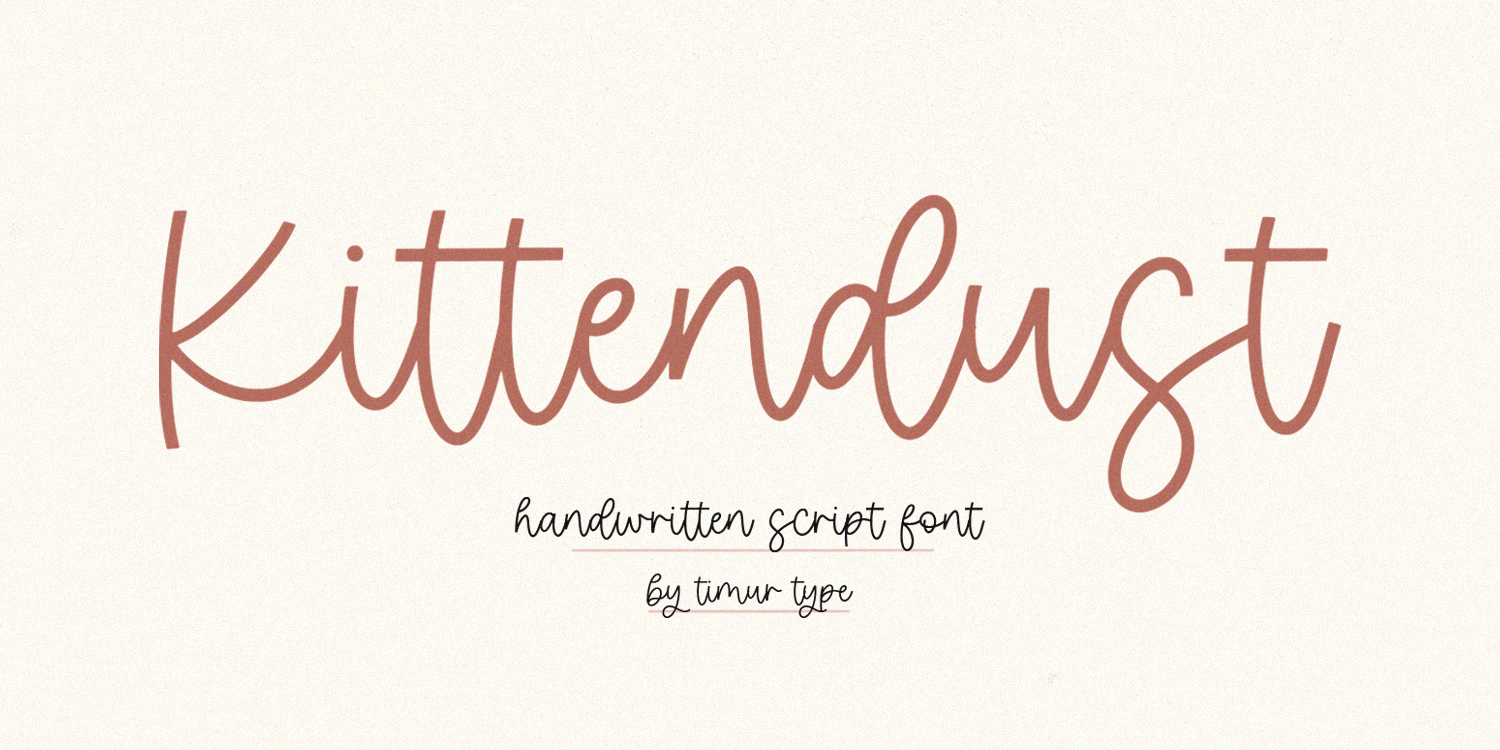
Kittendust Font is perfect for adorable pet shop branding, whimsical children's book covers, magical fairy tale illustrations, dreamy nursery room decorations, enchanting toy packaging, delicate baby boutique signage, sweet candy store graphics, and charming family photography studios. This magical typeface excels in playful applications, enchanting design projects, and any creative work requiring sprinkled sweetness that captures the essence of childhood wonder and magical innocence through softly sparkling visual enchantment.
What makes Kittendust Font exciting is its extraordinary ability to embody magical innocence and playful enchantment through delicately sprinkled letterforms that shimmer with childhood wonder and sparkle with dreamy sweetness. The font features whimsically designed characters with fairy-dust curves and magical proportions that evoke feelings of pure joy and innocent delight, making it ideal for brands seeking to establish connections with children and families while communicating through enchanting magical visual language. Its sparkling presence ensures immediate recognition of innocent authenticity and magical charm.
Kittendust Font family includes multiple weights and styles: Regular, Bold, Light, Medium, Italic variations, and magical alternates with fairy-dust embellishments and enchanting decorative elements. Each family member maintains the distinctive whimsical character while offering comprehensive design options for magical campaigns, from gently sparkling text to enchanting headlines that establish innocent authority and magical credibility through delicately sprinkled typography.
Whether you're designing children's brand identities or creating magical family campaigns, Kittendust Font Free Download provides the perfect typography solution for enchanting branding needs. This font transforms ordinary text into magical fairy-tale expressions that communicate innocent wonder and playful enchantment. Children's brands and family entertainment companies choose this typeface for its ability to convey magical sweetness through delicately crafted letterforms that sparkle through designs with innocent charm and celebrate the beautiful magic of childhood imagination.